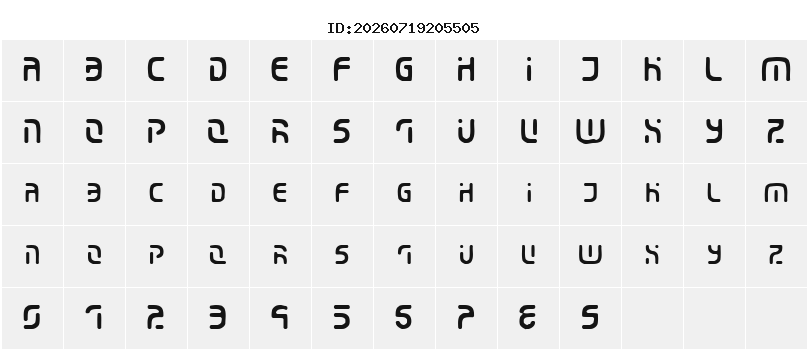
Eroded 2020 Preview
• Font Name: Eroded 2020
About Eroded 2020.ttf
Eroded 2020.ttf is a modern, elegant sans-serif font designed for ultimate readability and visual harmony. Perfect for branding, headlines, web design, and print materials.